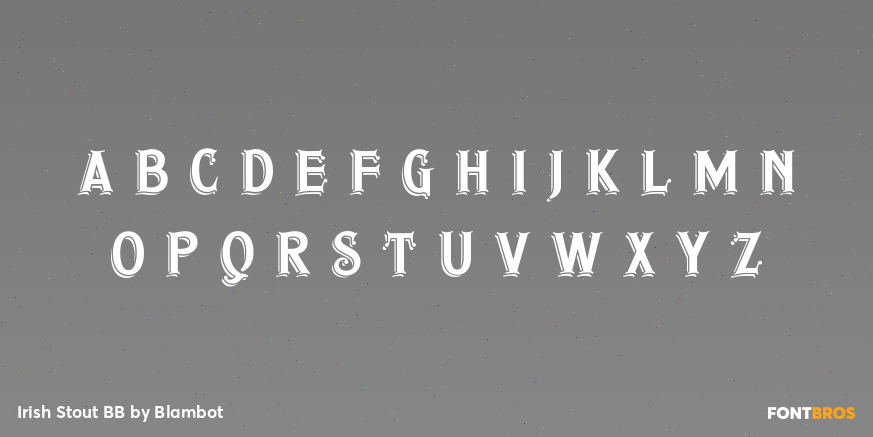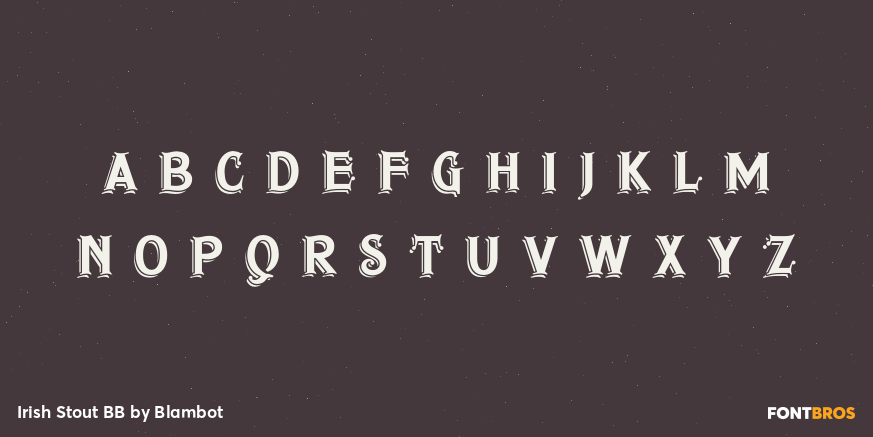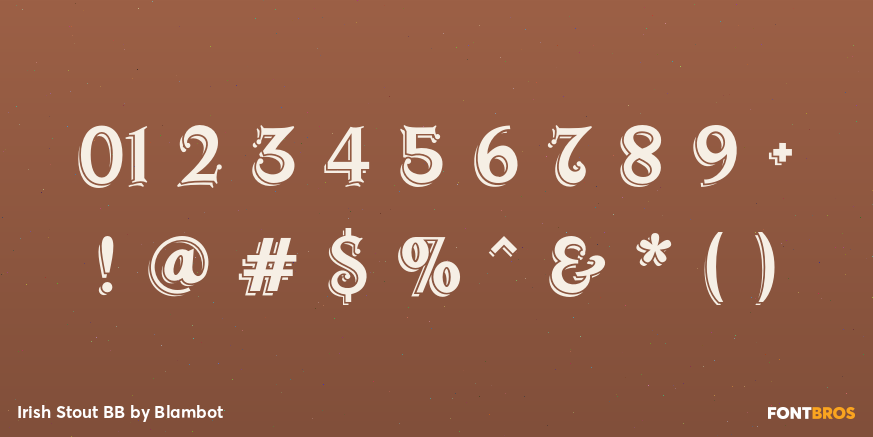
Irish Stout BB
Font Family by Blambot
Created by Blambot's Nate Piekos for a party invitation, IRISH STOUT has a deep, dark aroma and a creamy, white head. Serve ice cold with a heaping plate of Shepherd's Pie! Comes with a six-pack of European characters.